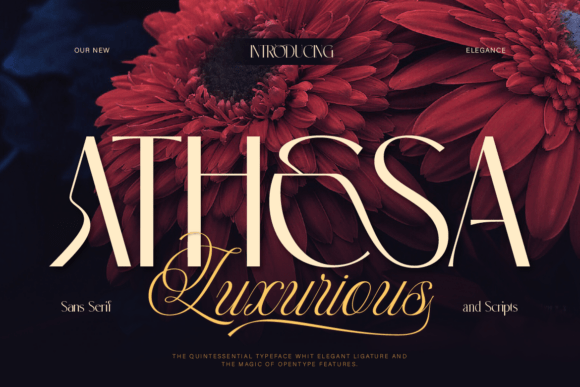
Athesa Luxurious Font: Elevate Your Design with Elegance and Glamour
In the world of typography, fonts play a crucial role in conveying the tone and personality of a brand. For those seeking luxury, elegance, and timeless beauty, Athesa Luxurious is the perfect solution. This font duo combines a modern sans serif with a romantic, feminine script, creating a stunning visual contrast that is sure to captivate your audience.
The Perfect Blend of Modernity and Romance
Athesa Luxurious is a carefully crafted font duo that brings together two distinct styles to create a harmonious and elegant visual identity. The modern sans serif font provides a clean and sleek foundation, while the romantic script font adds a touch of femininity and sophistication. This beautiful contrast makes Athesa Luxurious perfect for high-end fashion branding, wedding invitations, product packaging, and editorial designs.
Key Features of Athesa Luxurious Font
- Modern Sans Serif and Romantic Script Combination: The font duo offers a unique blend of modernity and elegance, making it perfect for luxury brands and high-end designs.
- Elegant Ligatures and Alternates: Athesa Luxurious features stylish ligatures and alternates, ensuring that every letter flows with purpose and poise.
- Perfect for High-End Designs: The font is ideal for branding, wedding invitations, product packaging, and editorial designs that require a touch of luxury and sophistication.
- Timeless Beauty: Athesa Luxurious is designed to stand the test of time, providing a classic and elegant look that will not go out of style.
The Benefits of Using Athesa Luxurious Font
Using Athesa Luxurious font in your designs offers numerous benefits. Firstly, it provides a unique and elegant visual identity that sets your brand apart from the competition. The font’s luxurious feel and sophisticated look make it perfect for high-end brands, wedding planners, and luxury product designers.
Applications of Athesa Luxurious Font
- High-End Fashion Branding: Create a luxurious and sophisticated brand identity with Athesa Luxurious font.
- Wedding Invitations: Add a touch of elegance and romance to your wedding invitations with this beautiful font duo.
- Product Packaging: Elevate your product packaging with a luxurious and sophisticated look that reflects your brand’s high-end quality.
- Editorial Designs: Use Athesa Luxurious font to create stunning editorial designs that showcase your brand’s elegance and style.
Tips for Using Athesa Luxurious Font Effectively
To get the most out of Athesa Luxurious font, here are some tips to keep in mind:
Pairing and Contrast
Athesa Luxurious font is designed to be versatile and can be paired with a variety of fonts to create a unique look. Experiment with different font combinations to find the perfect balance of style and personality.
Color Schemes
The color scheme you choose can greatly impact the overall look and feel of your design. For a luxurious and sophisticated look, consider pairing Athesa Luxurious font with neutral colors such as black, white, and gray.
Typography Hierarchy
Establishing a clear typography hierarchy is essential for creating a visually appealing design. Use Athesa Luxurious font to create a clear distinction between headings, subheadings, and body text.
Athesa Luxurious font is the perfect solution for those seeking luxury, elegance, and timeless beauty in their designs. With its unique blend of modern sans serif and romantic script, this font duo offers a stunning visual contrast that is sure to captivate your audience. Whether you’re a high-end fashion brand, wedding planner, or luxury product designer, Athesa Luxurious font is the perfect choice for elevating your design with elegance and glamour.